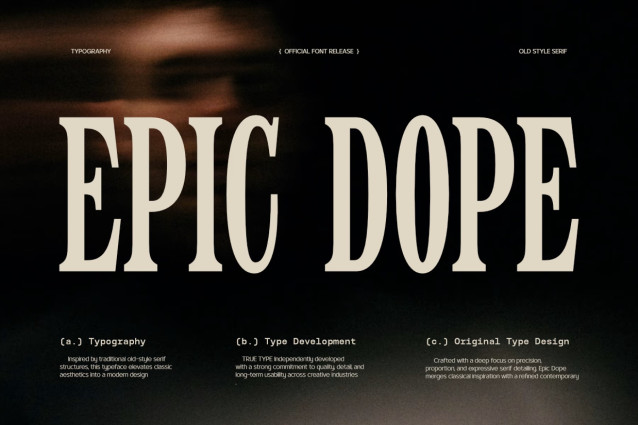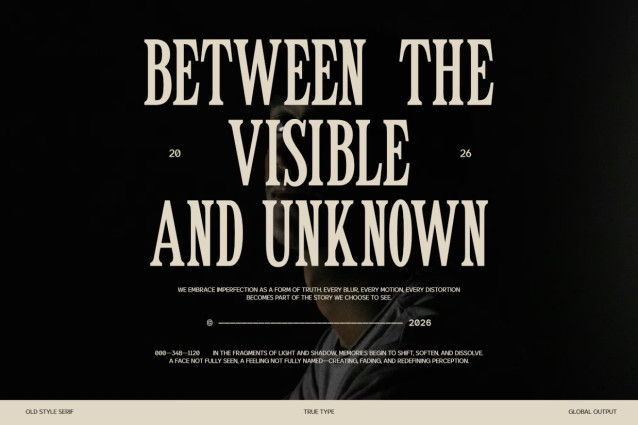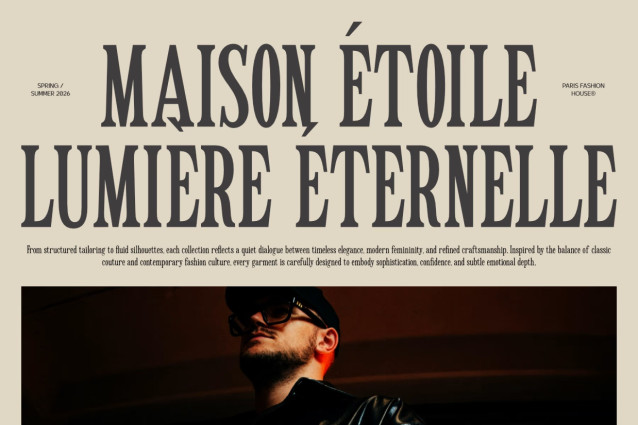
TRT Epic Dope – Elegant Condensed Serif Font
TRT Epic Dope is an elegant condensed serif typeface crafted to bring sophistication, character, and timeless style into modern design projects. Featuring tall proportions, refined curves, and beautifully balanced high-contrast strokes, Epic Dope delivers a distinctive visual presence that feels both classic and contemporary.
Designed to stand out in large-scale applications, this typeface combines the elegance of traditional editorial typography with the bold confidence of modern branding. Its narrow structure allows designers to create impactful compositions while maximizing space efficiency, making it perfect for headlines, logos, packaging, magazine covers, and luxury brand identities.
The carefully crafted serif details add a sense of refinement and personality, while the elongated letterforms create a dramatic and memorable appearance. Whether you’re building a premium fashion brand, designing a high-end restaurant identity, creating elegant packaging, or developing sophisticated editorial layouts, Epic Dope provides the perfect balance between readability and visual impact.
TBJ Epic Dope excels in projects that demand elegance, exclusivity, and strong typographic character. From luxury branding and boutique packaging to posters, social media campaigns, and stylish logo design, this typeface is built to elevate your work with confidence and class. To fully enjoy everything this font has to offer, programs like Adobe Illustrator, Photoshop, or Indesign will help you get the most out of all the glyphs and features.